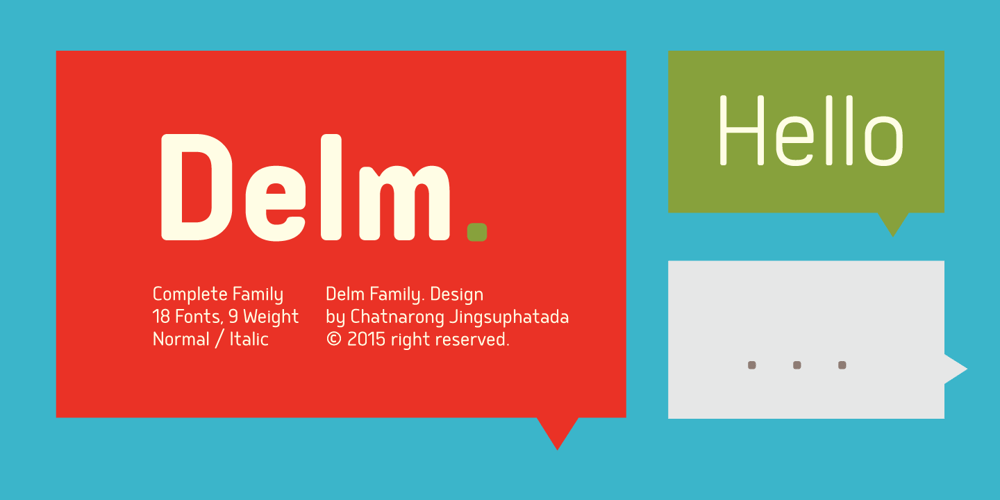
Delm Font Family was designed by Chatnarong Jingsuphatada and published by Typesketchbook. Delm contains 18 styles and family package options. Delm font family is one of those large and useful families that you really can’t miss if you are looking for typeface combining originality and legibility. Delm is one of these – a sans serif with geometric modern look designed very smart with soft round look and very specific inktraps that complement its uniqueness. It is developed in 9 separate weights ranging from Hairline to Black, each coming with corresponding slanted version (called ‘Oblicua’). The light weights look more elegant, gentle and with more sensible feeling for geometry while the black versions are more soft, friendly even puffy and the geometric skeleton of the family is dominated by the overall roundness. The mid-weights are strong and prominent setting right the middle point in the contrast range of the family. Delm is a font with dedication – with so many options for different character contrast combined with slanted styles, it is perfect for editorial design where it could be easily used either for text or display font. Editorial is not of course the only application – you could successfully rely on this typeface if create brand or corporate identity, typographic posters, signboards, instruction plates, etc. Very diverse and original, this font will not leave you unsatisfied – moreover – it will surely make you try it in more and different designs be it printed or designed for screen. Web sites, banners, applications and e-books are places where Delm will show its best because of its originality, finely tuned contrast and its enhanced legibility. Fully equipped with OpenType features like ligatures and multilingual support, Fontmatters highly recommends to get the whole Delm font family for maximum results and satisfaction.